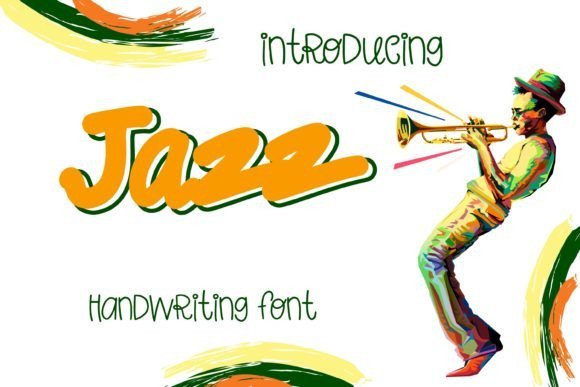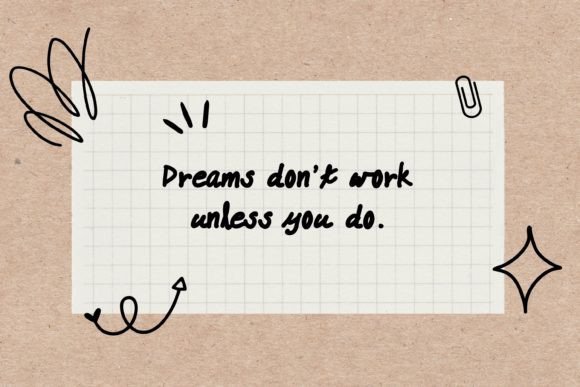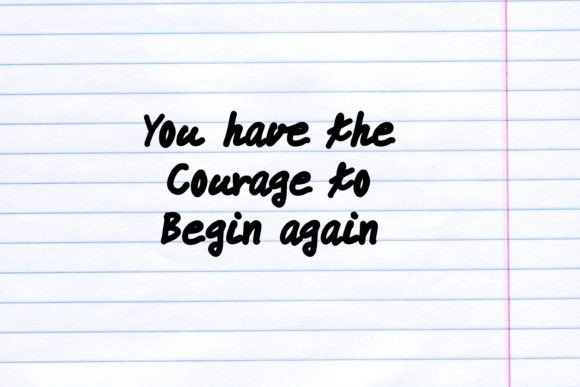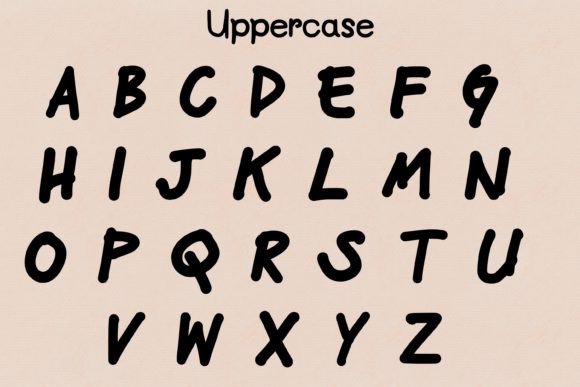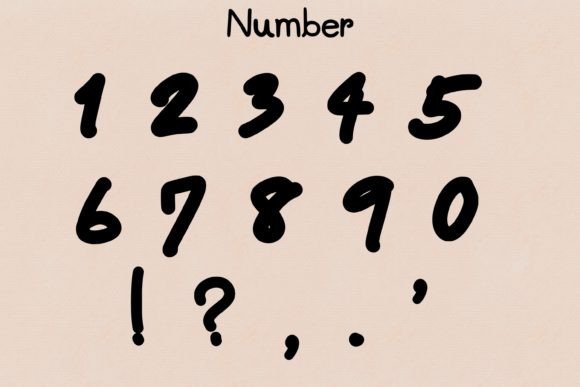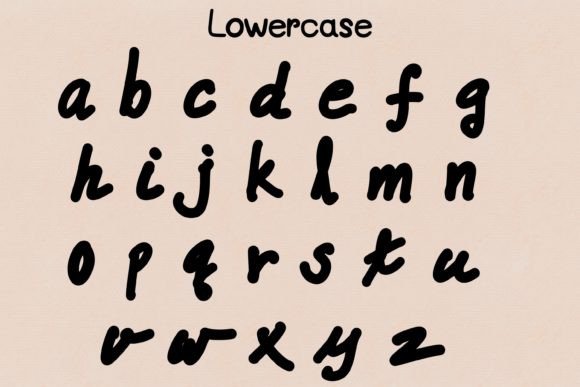
Get Ready to Groove with Jazz Font
Have you ever found yourself doodling in the margins of a notebook, trying to capture the essence of a creative idea? That’s exactly where the magic happens, and it’s where the Jazz Font comes in – a modern and dynamic handwritten font that’s perfect for jotting down notes, making to-do lists, or even creating engaging lectures for students.
As a designer, you’re always on the lookout for unique and versatile fonts to elevate your designs. The Jazz Font is an excellent addition to your toolkit, offering a quirky and lovable handwritten style that’s sure to add a touch of personality to any project. Whether you’re creating a logo, brochure, or social media graphic, the Jazz Font is a valuable asset that will help you stand out from the crowd.
Jazz Font Key Features
- Unique Characteristic: Jazz Font is known for its energetic and playful feel, making it perfect for use in titles, headings, and other display typography.
- Font Style: Jazz Font comes in a single style, but it’s available in multiple weights, from Light to Bold, allowing designers to achieve a range of visual effects.
Jazz Font Review
Overall, I think the Jazz Font has some great qualities, but it also falls short in a few areas.
- Unique and stylish design: The Jazz Font has a very distinctive look that will certainly grab attention.
- Wide range of languages supported: This font includes a wide range of language support, making it a great choice for global audiences.
- Legibility: The font is generally easy to read, even at smaller font sizes.
- Lack of consistency: Some of the font’s characters feel a bit inconsistent in their design, which can be jarring.
- Not ideal for body text: While the Jazz Font is great for headlines and titles, it’s not the best choice for large blocks of body text.
- May not be suitable for all audiences: The font’s bold, eye-catching design may not be suitable for all types of content, such as financial or technical writing.
While the Jazz Font has some great qualities, its limitations hold it back from being a truly exceptional choice. It’s a good option for those looking to add some personality to their headlines or titles, but it may not be the best fit for larger projects or more formal content.
The Jazz Font is a great choice for creating eye-catching titles and headings. It’s also suitable for use in advertising and marketing materials, as well as in music-related projects.
Alternatives to Jazz Font for Designers
Playfair Display is a luxurious and elegant serif font, perfect for creating a high-end or vintage feel in your design. It’s ideal for use in titles, headings, and other prominent text elements.
Compared to Jazz Font, Playfair Display has a more refined and sophisticated appearance, making it suitable for projects that require a touch of luxury.
Great Vibes is a beautiful, elegant script font that adds a touch of sophistication and whimsy to your design. It’s perfect for use in titles, headings, and other text elements where a flowing, handwritten feel is desired.
Compared to Jazz Font, Great Vibes has a more fluid and organic appearance, making it suitable for projects that require a sense of movement and energy.
Pacifico is a beautiful, elegant script font that adds a touch of sophistication and relaxation to your design. It’s perfect for use in titles, headings, and other text elements where a flowing, handwritten feel is desired.